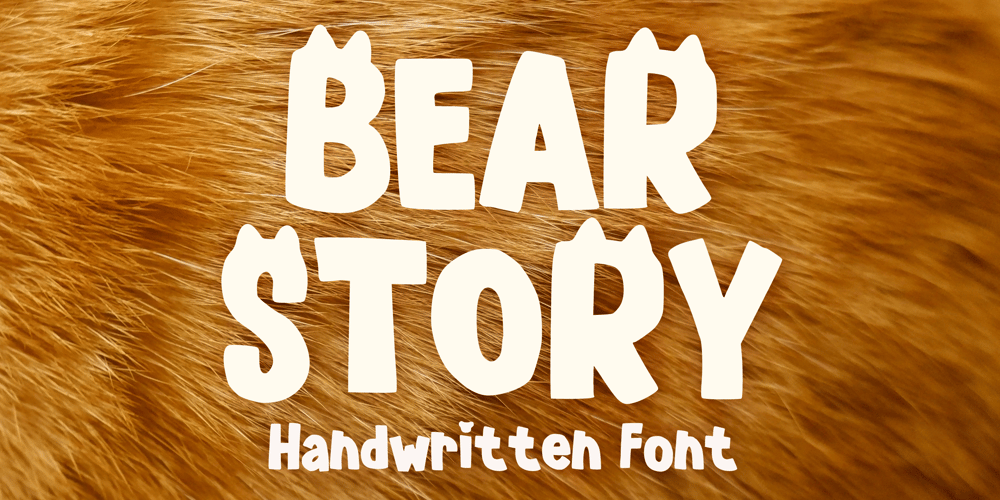
Bear Story
Bear Story font
Bear Story Font Family was designed by Gabriel Valentinus and published by Mvmet. Bear Story contains 1 styles and family package options. Bear Story is a cute animal themed display font. Create something with it from regular typing notes, to t-shirts, kids’ book designs, greeting cards, stickers, posters, or anything that needs a casual touch. Fall in love with its incredible style and use it to create lovely designs!